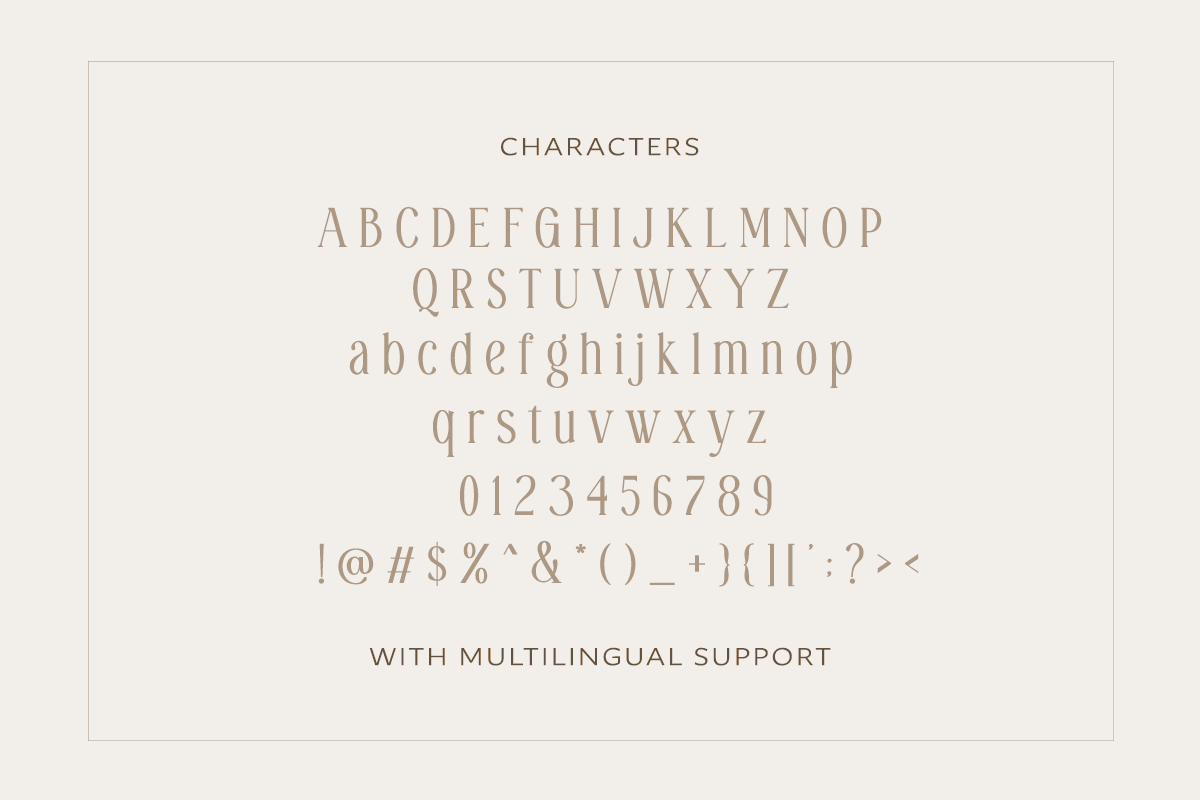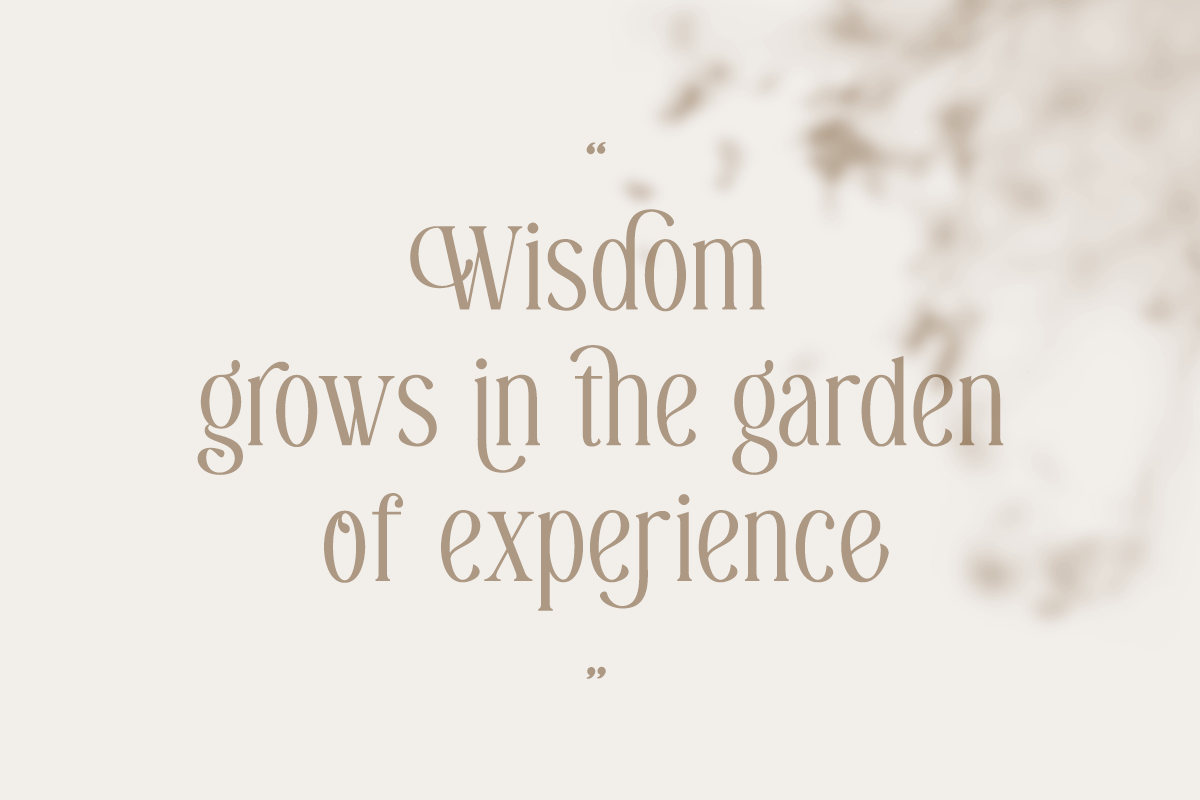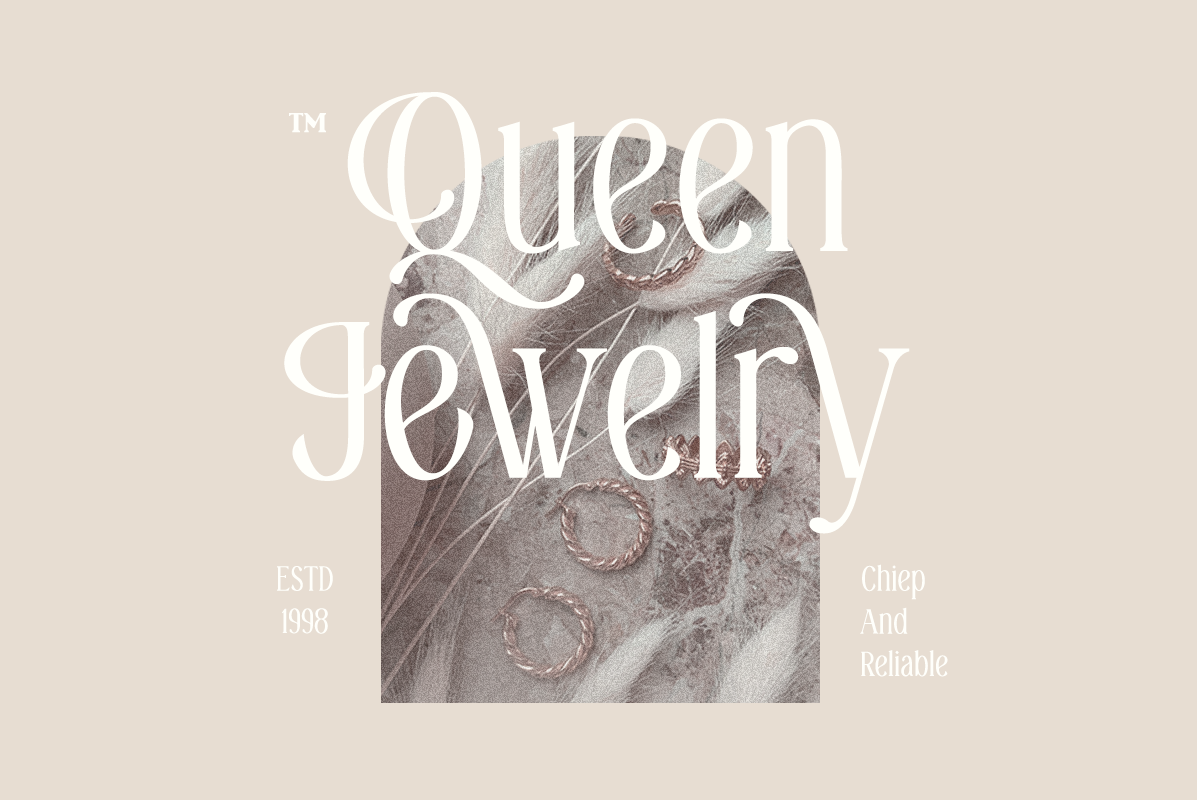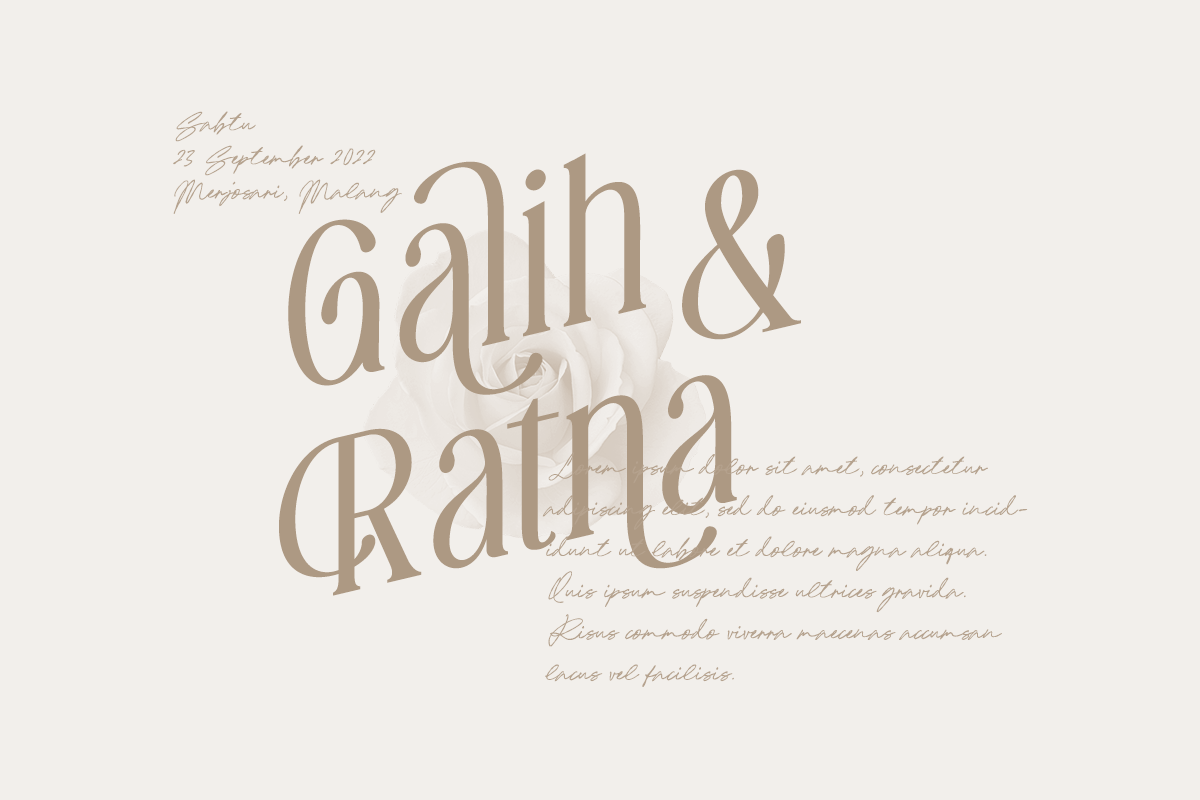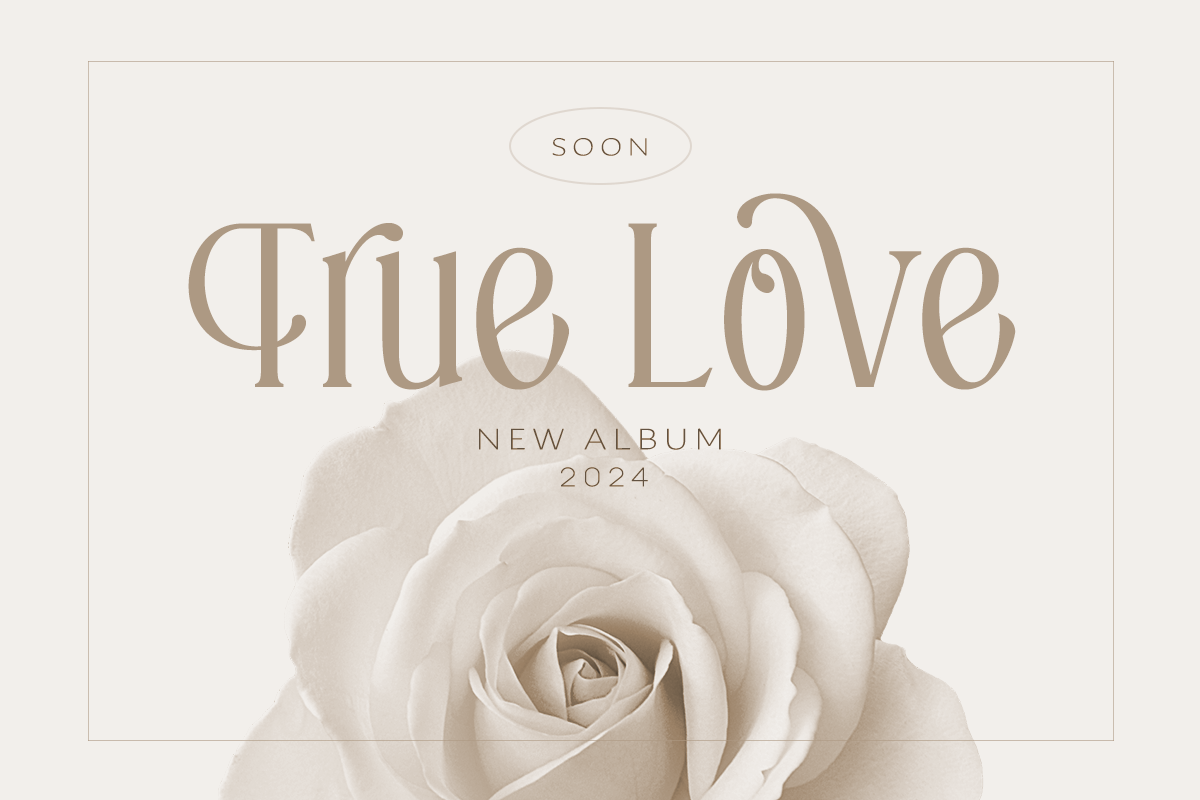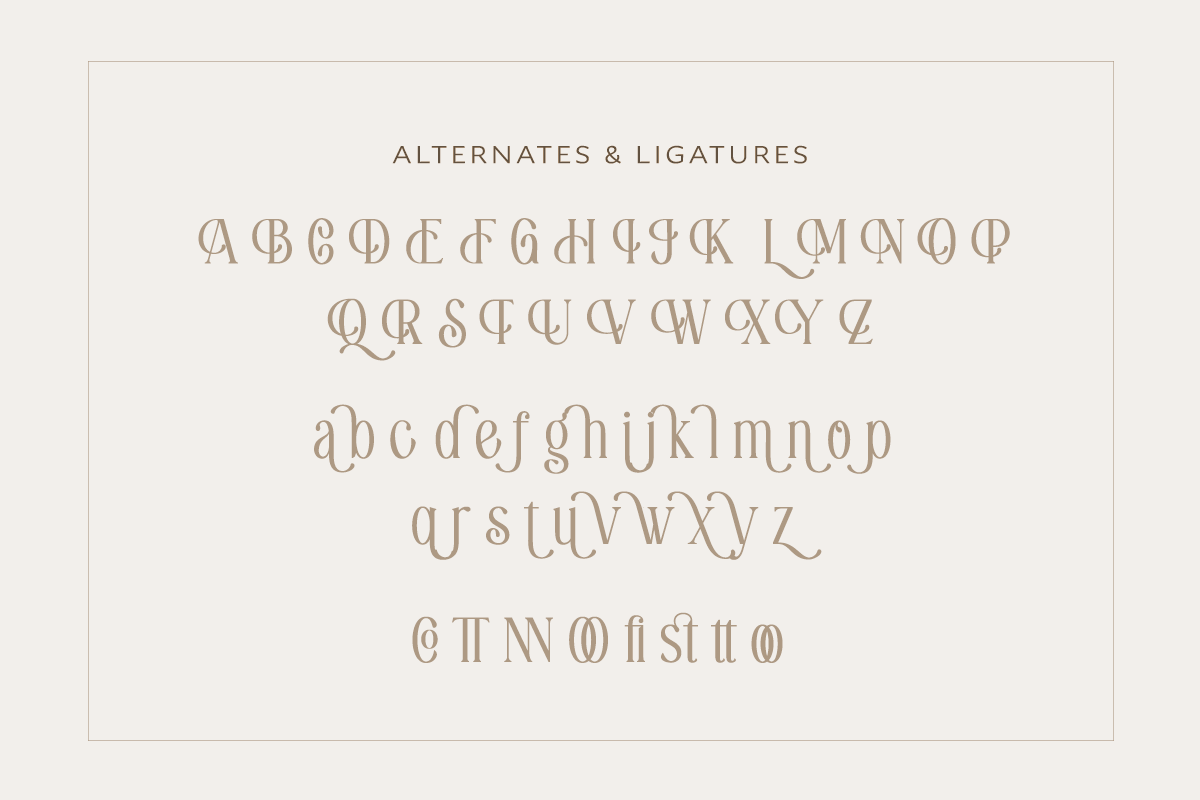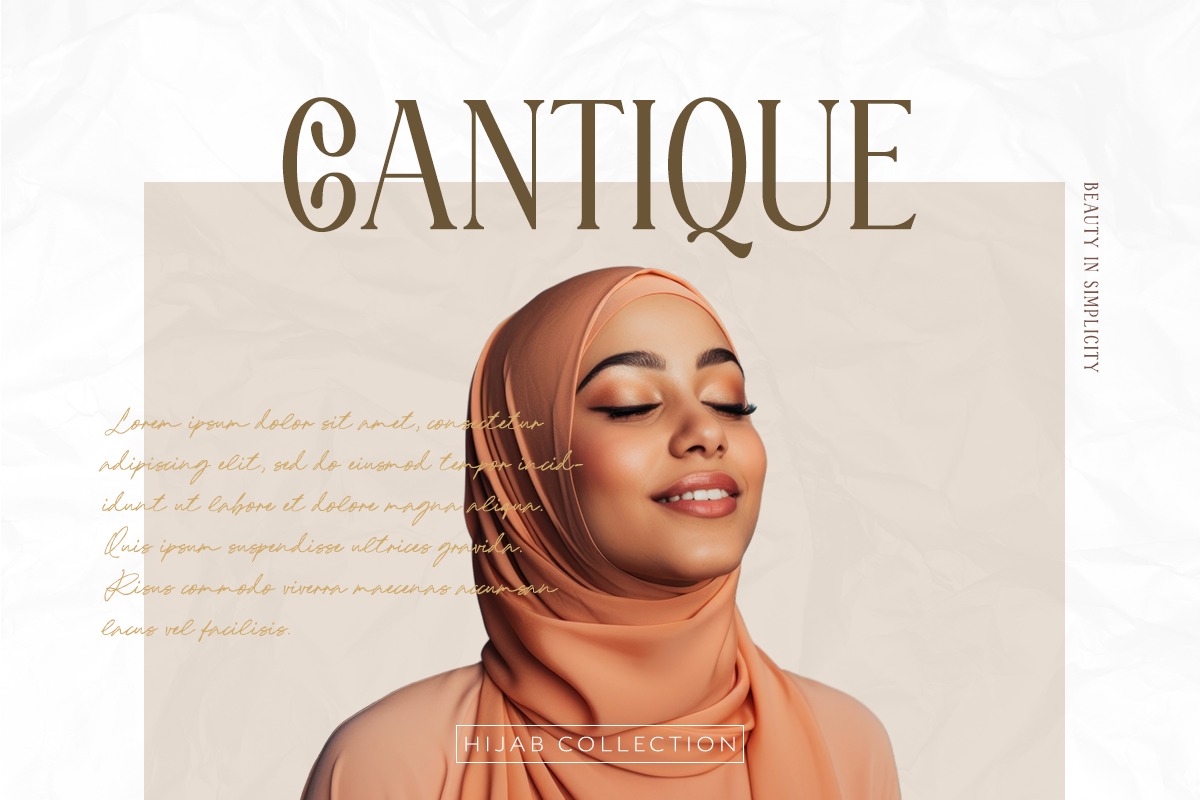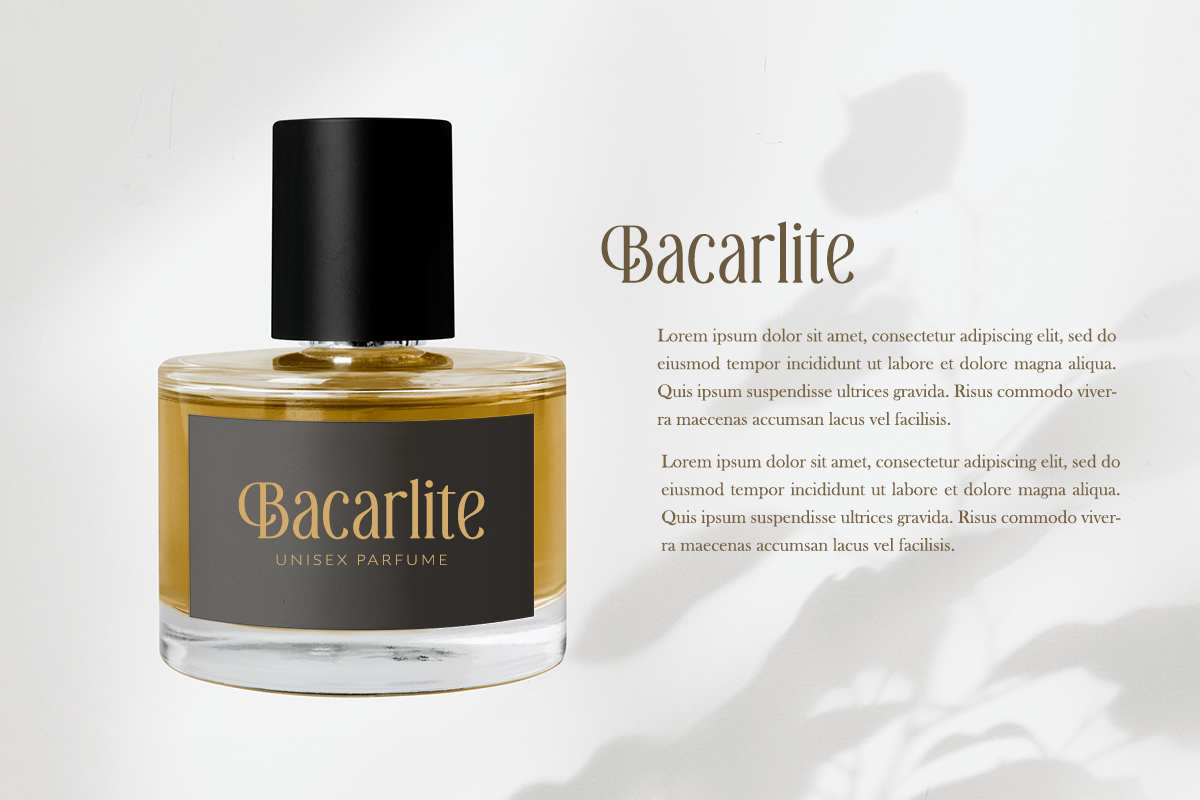
Rushtic Caramel
Rushtic Caramel- Tall Serif The Rushtic Caramel font is a serif font inspired by beauty and tenderness. It is suitable for perfume, magazines, fashion, and works that use a soft and beautiful style